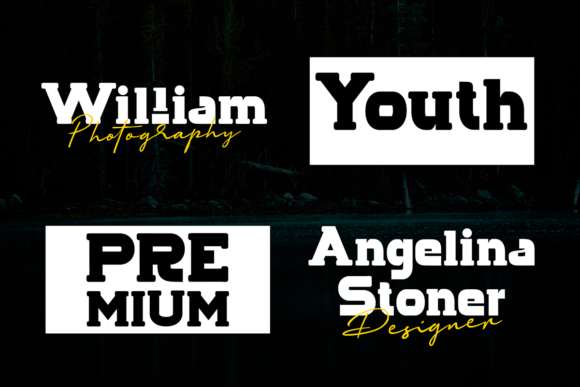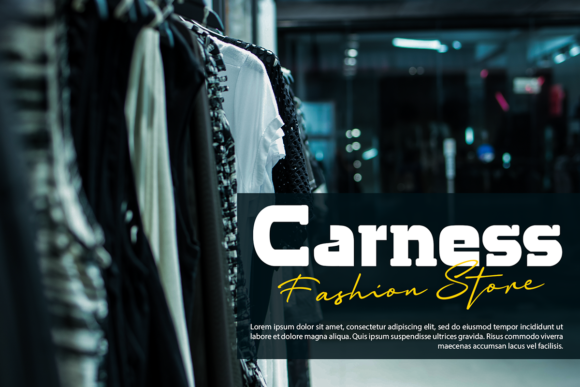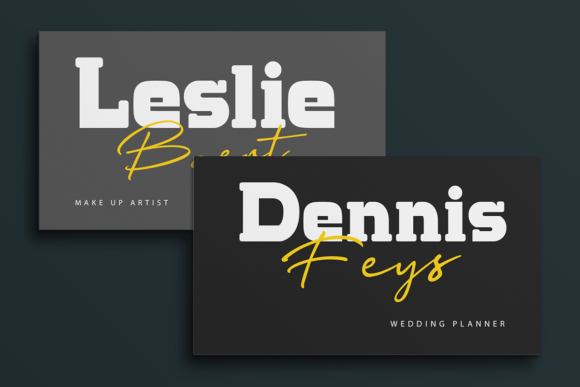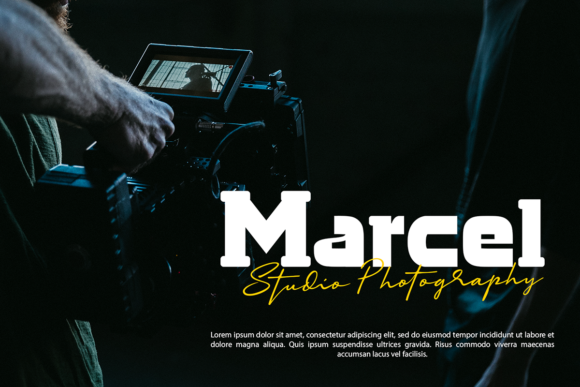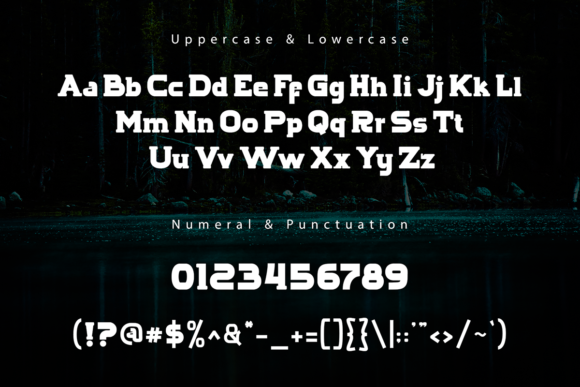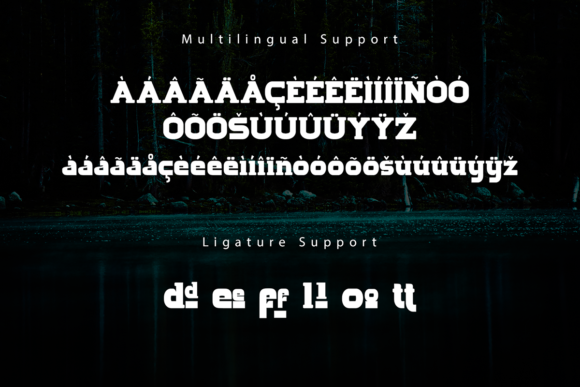
Introducing Allershire Font: Elevate Your Designs with Modern Elegance
In the world of typography, a font can make or break the visual appeal of a design. For designers and crafters looking for a typeface that exudes modernity and sophistication, Allershire Font is an excellent choice. This stylish serif font is designed to elevate your brand logos, invitations, greeting cards, and any other project that requires a touch of elegance.
What Makes Allershire Font Stand Out?
Allershire Font is not just another serif font; it’s a modern take on traditional typography. Its clean lines, precise curves, and balanced proportions make it perfect for a wide range of applications. Whether you’re designing a logo, creating an invitation, or crafting a greeting card, Allershire Font is sure to impress.
Key Features of Allershire Font
- Multilingual Support: Allershire Font comes with multilingual features, allowing you to create designs that cater to a global audience. With support for multiple languages, you can use this font to create content that resonates with people from diverse linguistic backgrounds.
- Style Variations: This font offers style variations, giving you the flexibility to experiment with different looks and feels. Whether you want to create a bold statement or a subtle impression, Allershire Font has got you covered.
- Serif Elegance: The serif design of Allershire Font adds a touch of sophistication to any project. The subtle serifs enhance the readability of the text, making it perfect for body text, headings, and titles.
Allershire Font is designed to meet the needs of designers and crafters who demand high-quality typography. With this font, you can:
- Create stunning brand logos that leave a lasting impression
- Design beautiful invitations that set the tone for special occasions
- Craft elegant greeting cards that showcase your creativity
- Elevate your projects with a modern and stylish typeface
Why Choose Allershire Font?
With so many fonts available, why choose Allershire Font? Here are a few compelling reasons:
- Unique Design: Allershire Font boasts a unique design that sets it apart from other serif fonts. Its modern take on traditional typography makes it perfect for designers looking for something fresh and exciting.
- Versatility: This font is incredibly versatile, making it suitable for a wide range of applications. From branding and advertising to crafting and DIY projects, Allershire Font is the perfect choice.
- Easy to Read: The serif design and balanced proportions of Allershire Font make it easy to read, even at small sizes. This ensures that your message gets across clearly, whether you’re designing a logo, invitation, or greeting card.
In conclusion, Allershire Font is an excellent choice for designers and crafters looking for a modern and stylish serif font. With its multilingual features, style variations, and elegant design, this typeface is perfect for elevating your brand logos, invitations, greeting cards, and any other project. Whether you’re a professional designer or a DIY enthusiast, Allershire Font is sure to become a valuable addition to your typography collection.